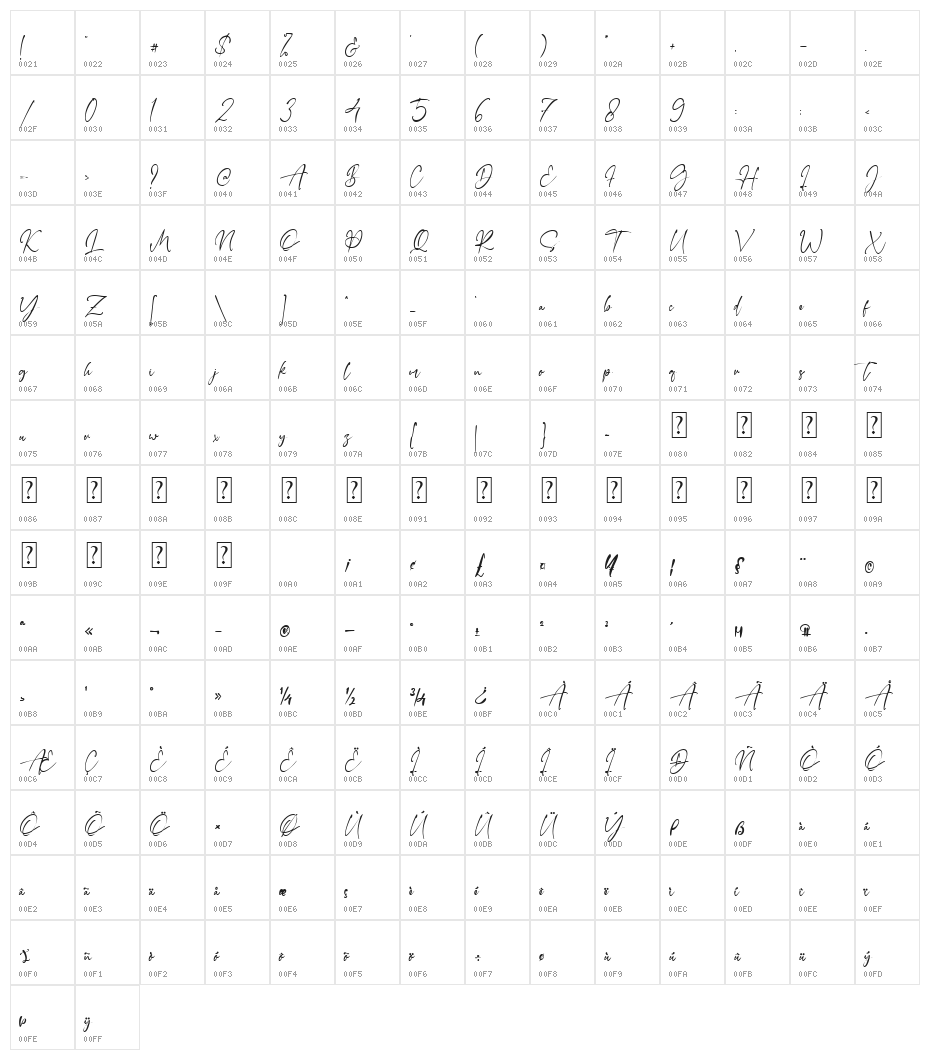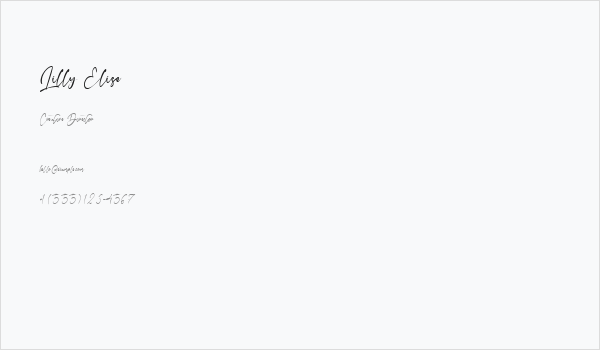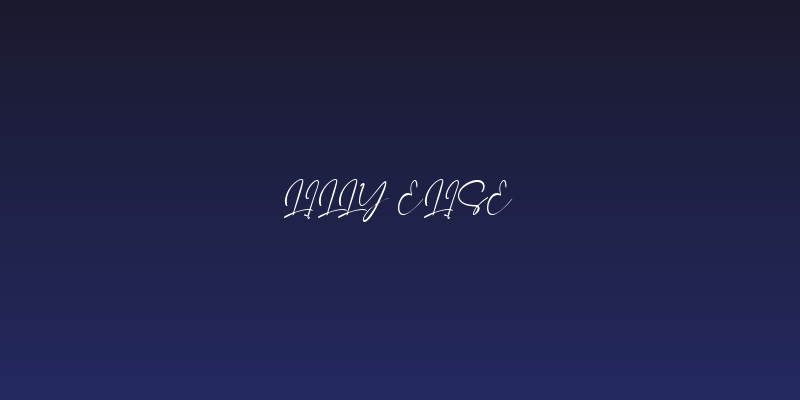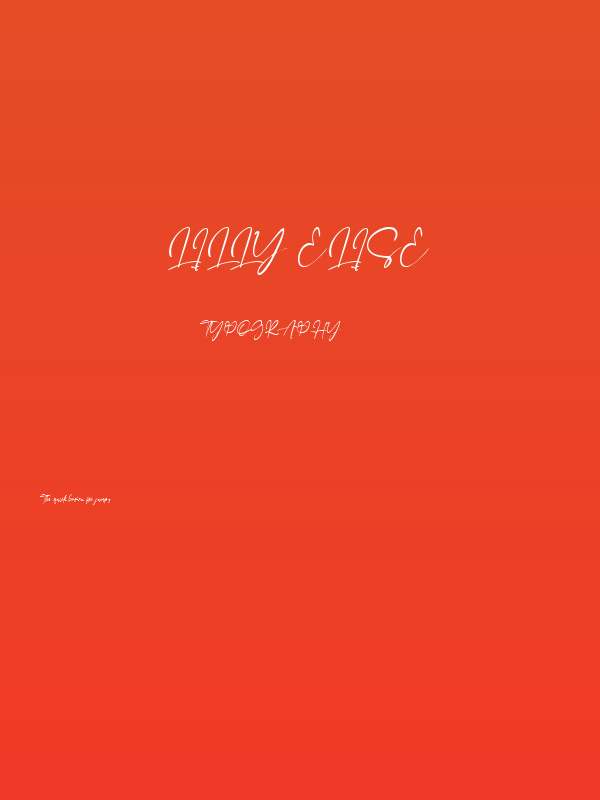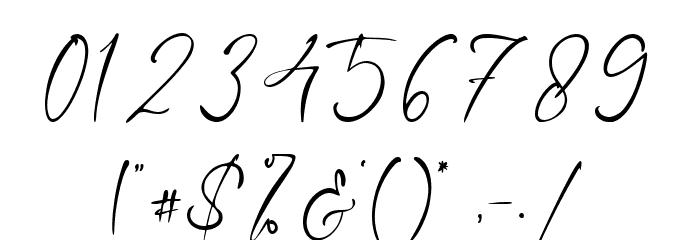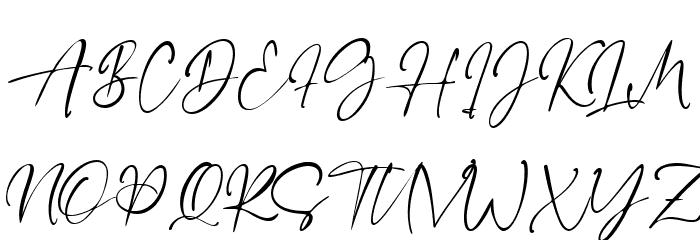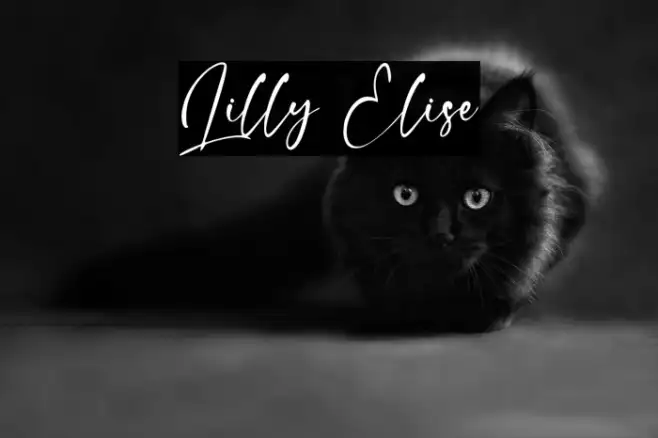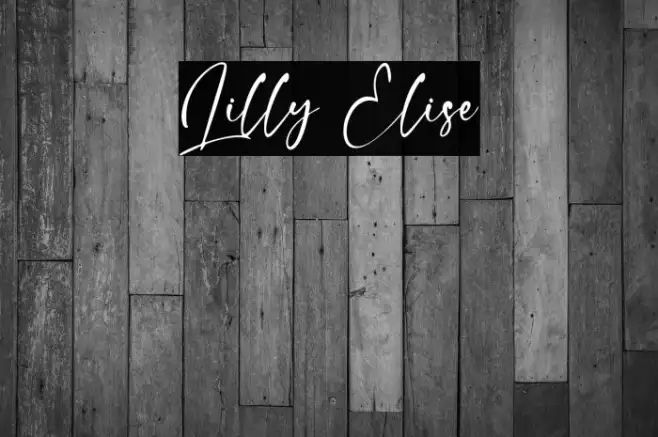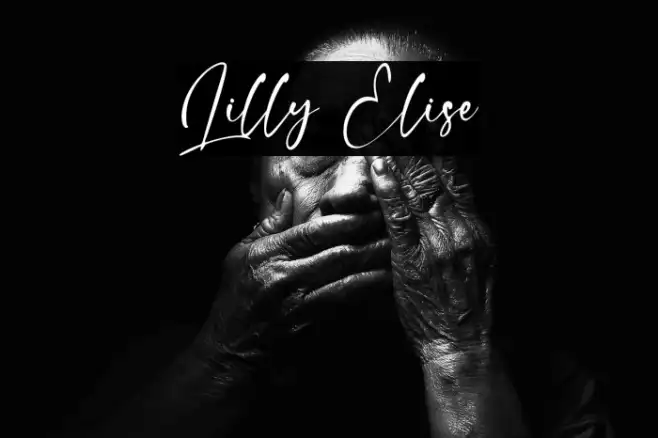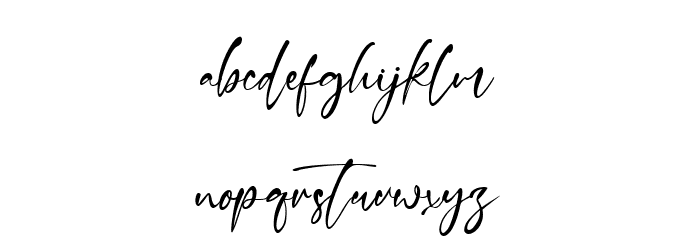
Lilly Elise Font
Lilly Elise Description
Elegant, flowing script font with high contrast strokes and a handwritten, calligraphic appearance. The characters are connected with smooth, sweeping lines, and the overall style is expressive and decorative.
| Overall Style | Decorative, Elegant, Handwritten |
| Use Case | Logos, Invitations, Headlines, Decorative text |
| Proposed Projects | Wedding invitations, greeting cards, branding, social media graphics, personal signatures. |